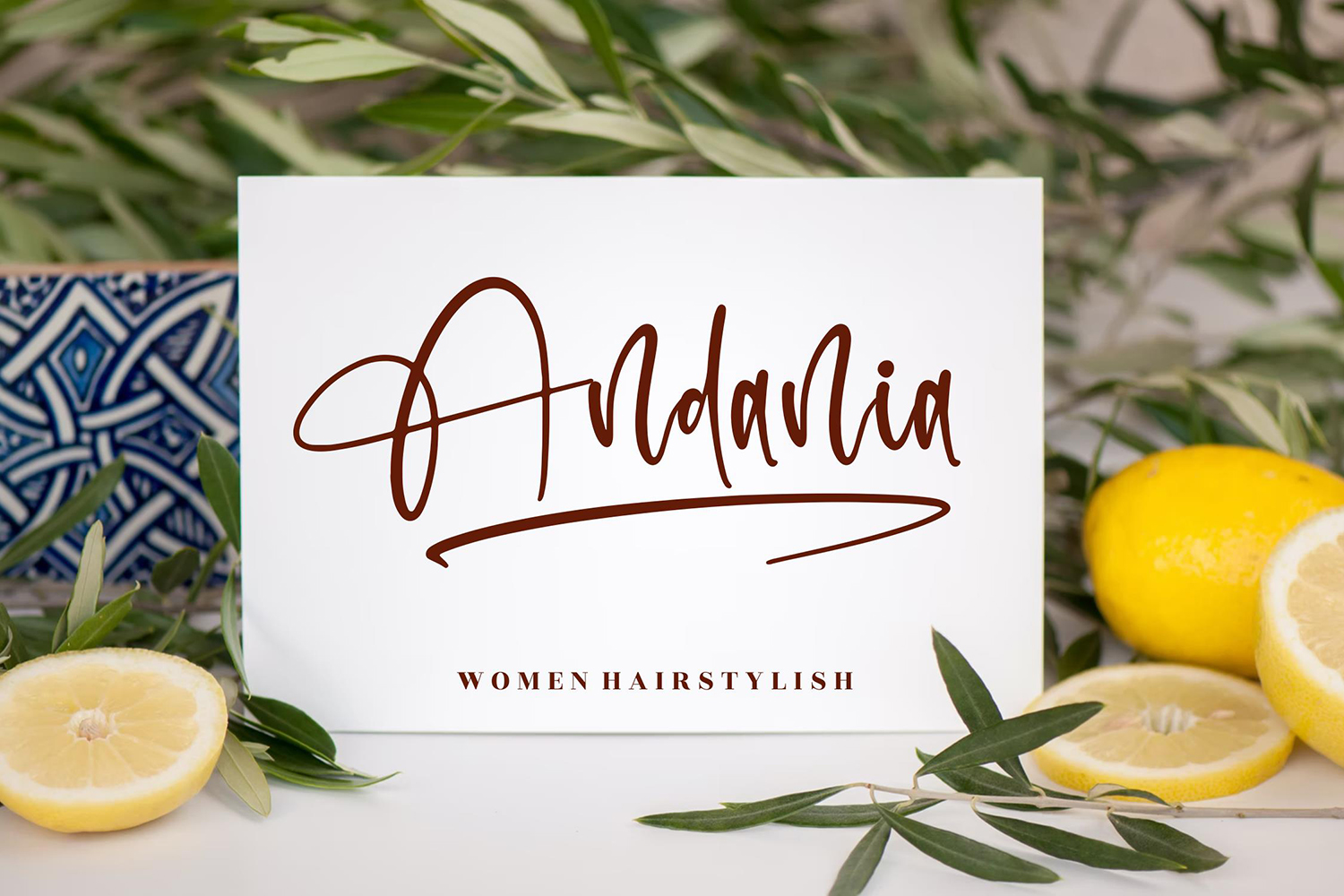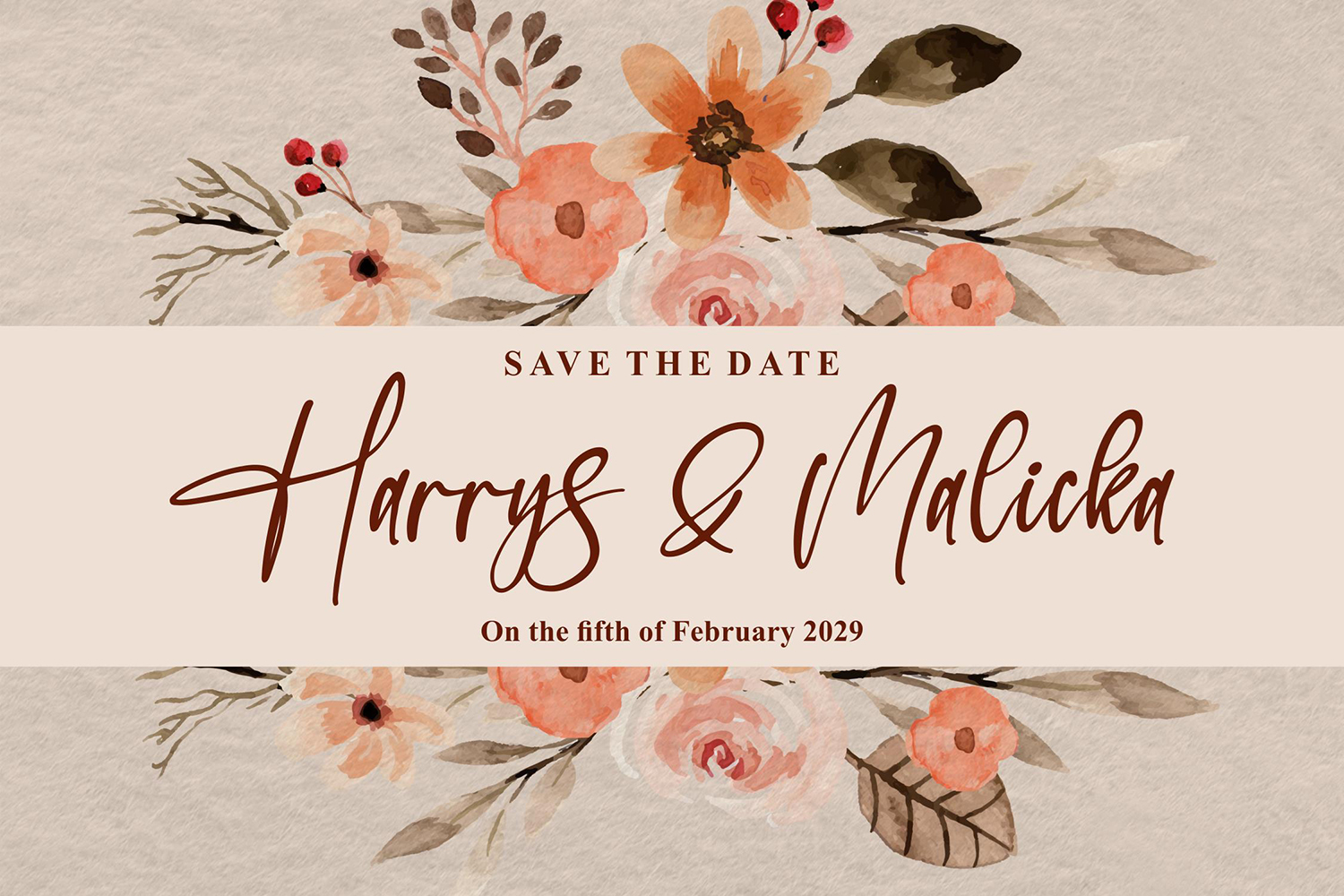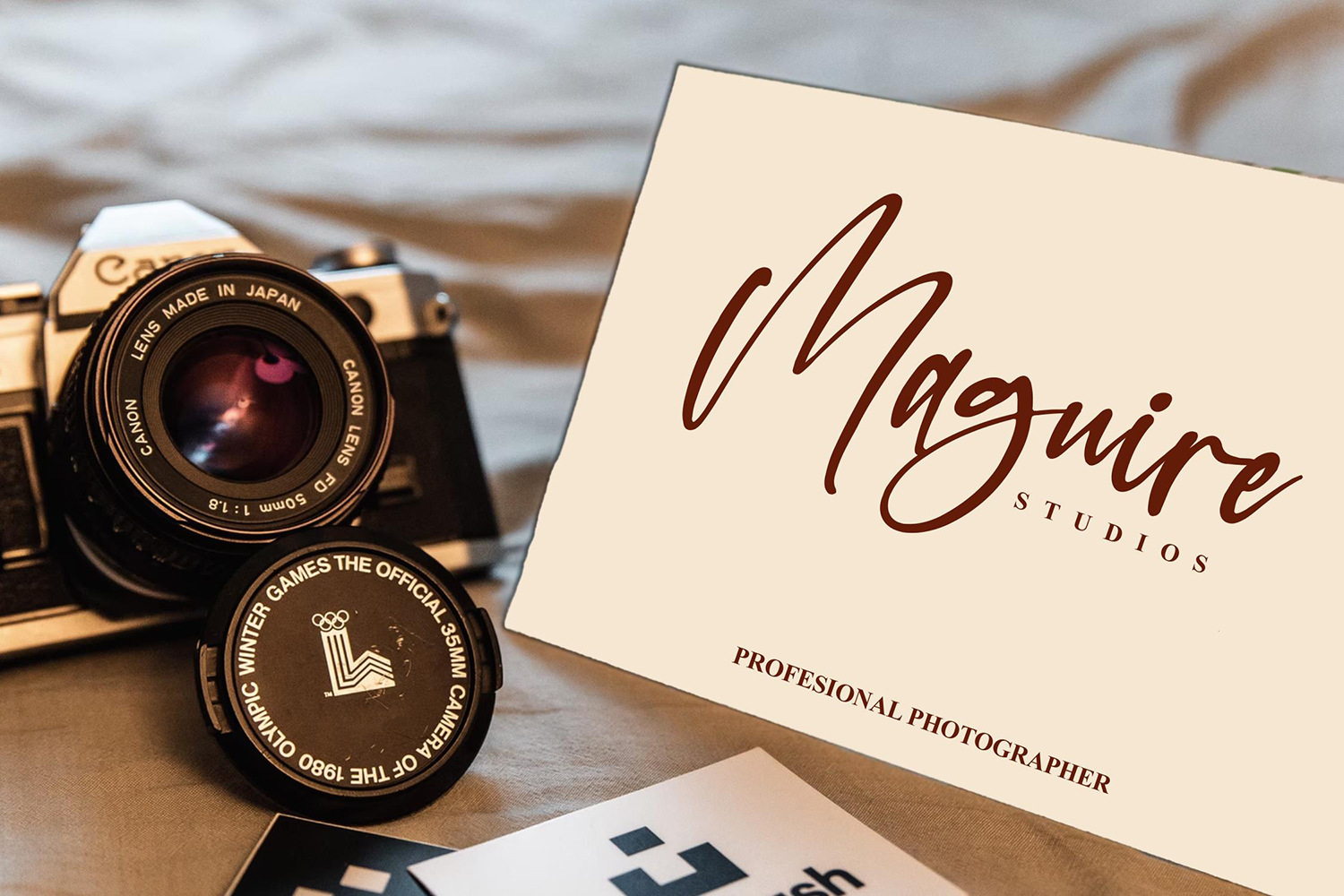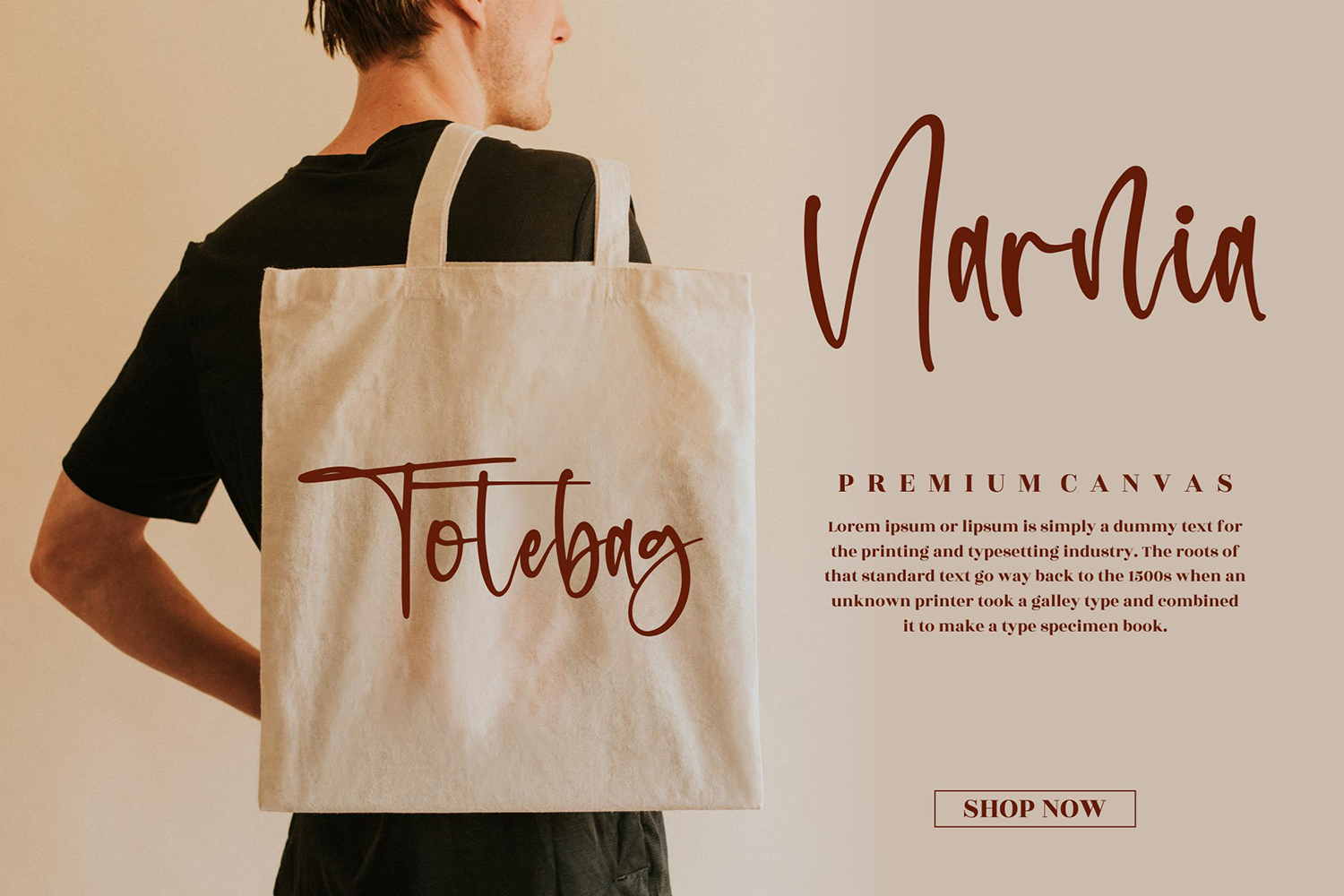
Alisteria Free Font
Alisteria Free Font, an exquisite calligraphy font, features characters that gracefully dance along the baseline. Incorporate this font to infuse a touch of luxury into your design projects, elevating their visual appeal. This free typeface was designed by a talentedΒ Letternity Studio. If you like it don’t forget to check out the full version.